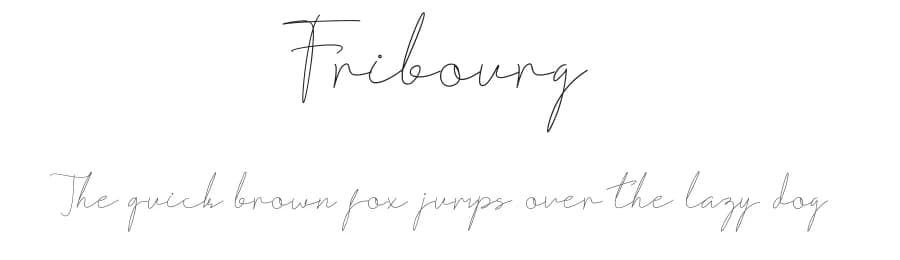
About Fribourg Font
Fribourg Specifications
| Font Family | Fribourg |
| Full Name | Fribourg |
| Glyph Count | 61 glyphs |
| PostScript Name | Fribourg-Regular |
| Designer | Yudi Setiawan |
Fribourg supports 89 languages.
Fribourg Font is a script font that shines as a display or heading face. Pair it with a clean sans-serif or serif font for body text β the contrast creates a clear hierarchy while the two styles stay balanced and easy to read.
Fribourg Font
by Helotype